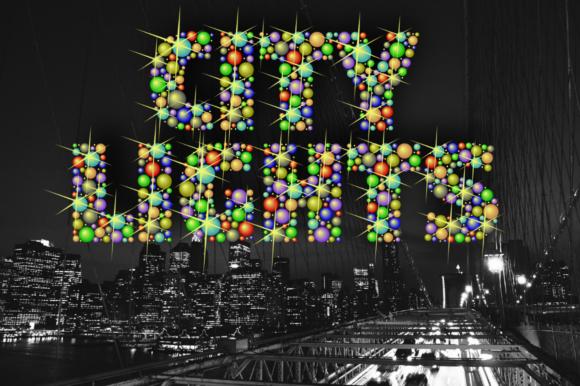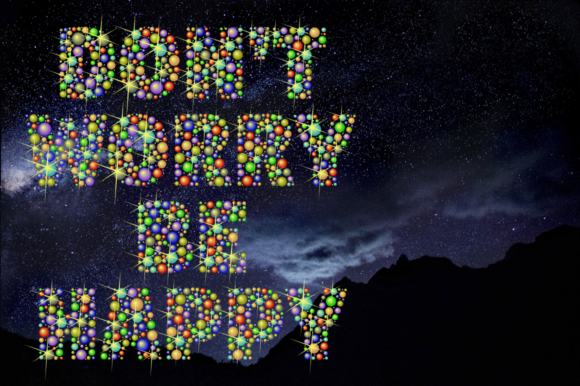
Introducing Digico – M Font: A Vibrant and Versatile Color Font
Are you tired of using the same old fonts in your designs? Look no further! Digico – M Font is an incredibly unique and friendly color font that is sure to bring your creative ideas to life. With its stunning color scheme and versatility, this font is perfect for designers and crafters looking to add a pop of personality to their projects.
What is Digico – M Font?
Digico – M Font is a color font, specifically an Opentype-SVG font, which means it’s a cutting-edge font technology that allows for colorful and intricate designs. This font is perfect for those who want to add a bit of whimsy and fun to their designs, whether it’s for a branding project, a craft, or a digital artwork.
What Makes Digico – M Font So Special?
So, what sets Digico – M Font apart from other fonts out there? Here are just a few reasons why designers and crafters love this font:
- Unique and Friendly Design: Digico – M Font boasts an incredibly unique and friendly design that’s sure to capture attention. Its colorful and playful vibe makes it perfect for projects that require a bit of personality.
- Versatility: This font looks lovely on a wide variety of designs, from digital art to branding projects, and even crafts. Whether you’re working on a serious project or something more playful, Digico – M Font is sure to shine.
Tips and Tricks for Using Digico – M Font
To get the most out of Digico – M Font, here are a few tips and tricks to keep in mind:
- Experiment with Different Colors: One of the best things about Digico – M Font is its colorful design. Don’t be afraid to experiment with different colors and combinations to find the perfect look for your project.
- Pair it with Other Fonts: Digico – M Font also pairs well with other fonts. Try combining it with a bold font for a striking contrast or with a script font for a more elegant look.
- Use it for Headings and Titles: The unique and playful design of Digico – M Font makes it perfect for headings and titles. Use it to add a pop of personality to your project and draw attention to important information.
In conclusion, Digico – M Font is an incredibly unique and versatile color font that’s perfect for designers and crafters looking to add a bit of personality to their projects. With its friendly design, compatibility with popular design software, and ease of use, this font is sure to become a favorite in your design arsenal. So why wait? Download Digico – M Font today and start bringing your creative ideas to life!